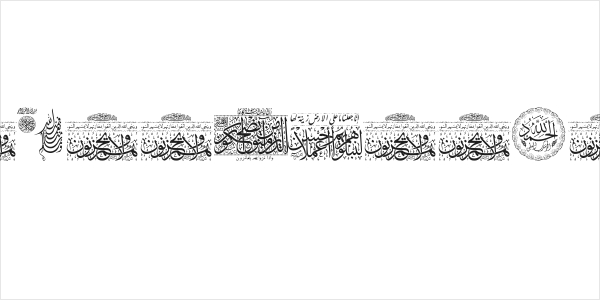
Aayat Quraan_038 Font
Aayat Quraan_038 Description
Highly ornate Arabic calligraphy with intricate decorative elements, featuring dense, flowing strokes and elaborate flourishes, commonly used for religious or ceremonial texts.
| Overall Style | Decorative, Traditional, Religious |
| Use Case | Religious texts, Art pieces, Decorative headings |
| Proposed Projects | Religious manuscripts, ceremonial documents, decorative borders, Islamic art, Quranic verses. |